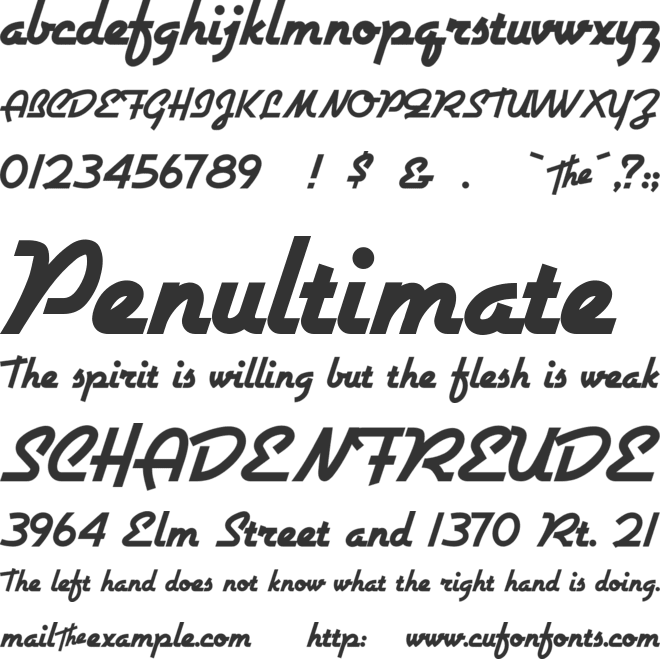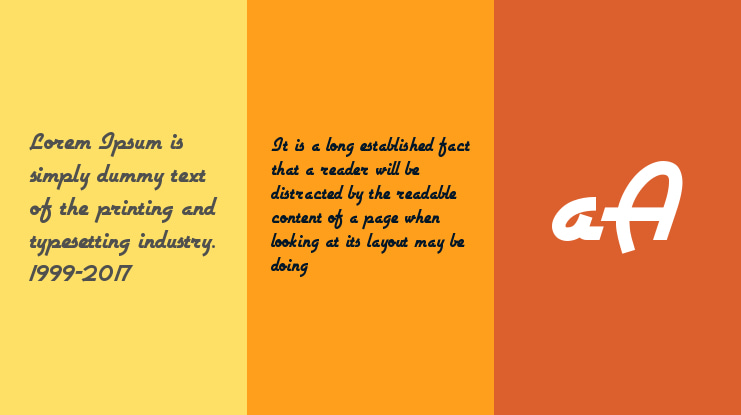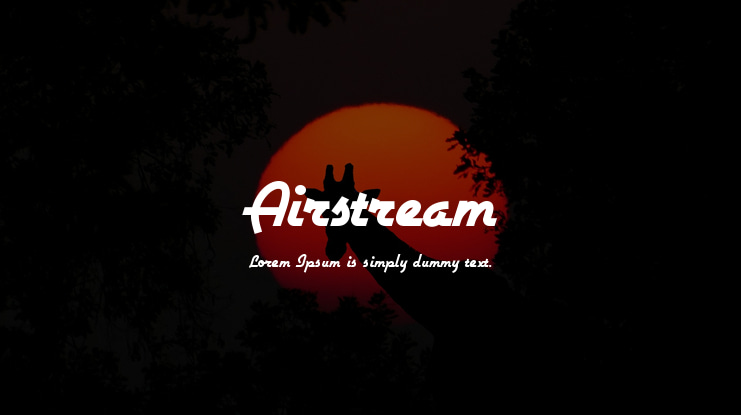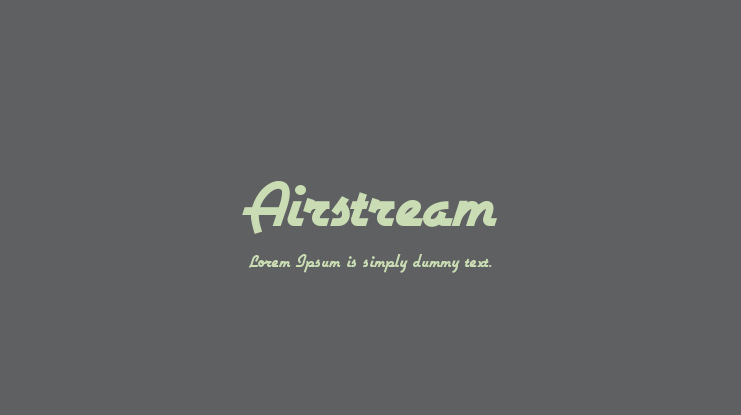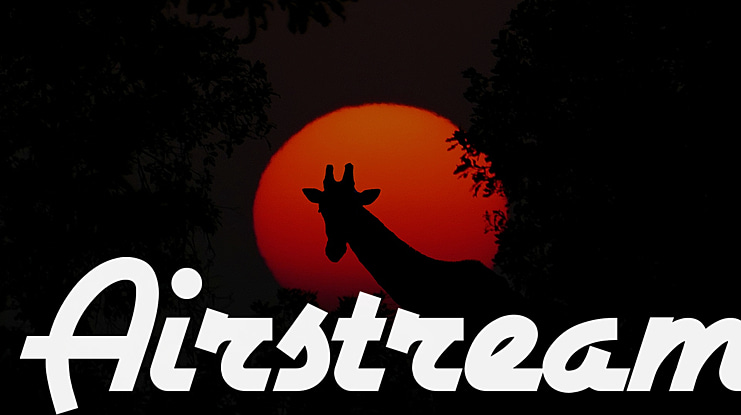
Airstream Font
Here’s a revival of an old favorite of mine, Gillies Gothic Bold, bolder and cleaner than the original. Its sweeping lines says it’s on the move, although perhaps at a much slower pace that we’re use to today. Named in honor of the great streamlined travel trailer.